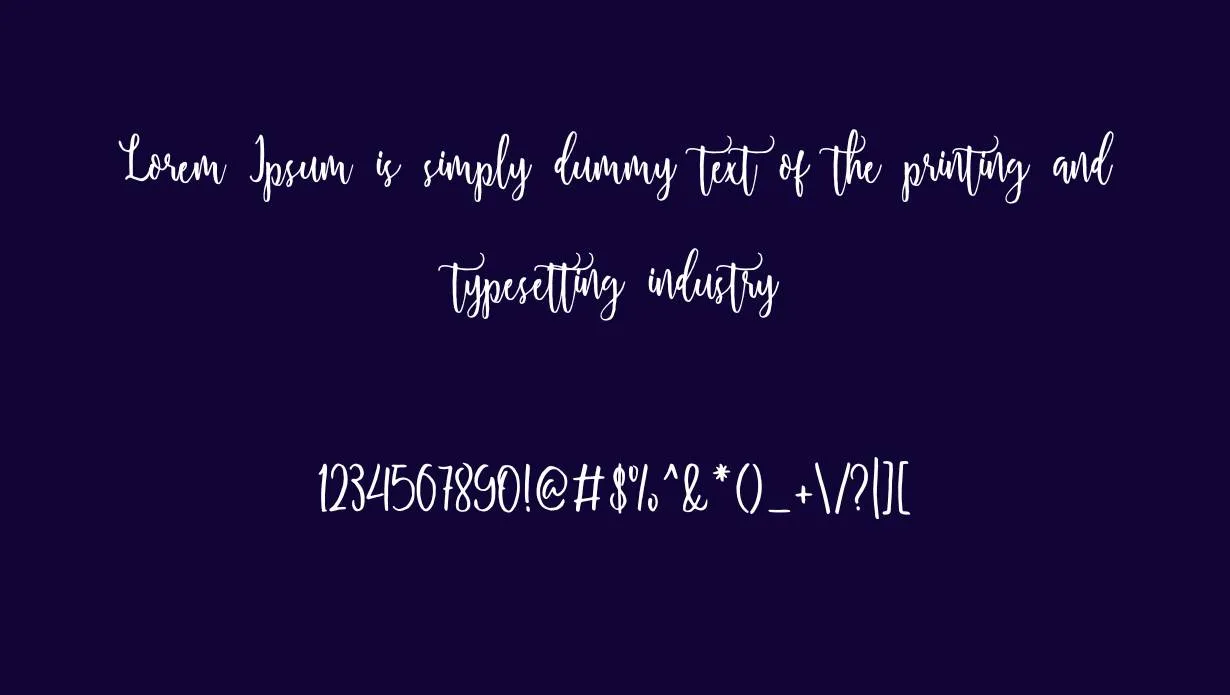
Shellahera font is like a handwritten note from a friend, adding a personal touch to your words. Ideal for warm messages or casual greetings, it creates an inviting atmosphere. The gently medium weight gives a friendly and approachable appearance, and its casually proportioned width makes Shellahera the font that feels like a friendly conversation in written form.
| Name | Shellahera Font |
| Designer | Ryan Prasetya |
Use Shellahera to add a personal touch to your words, making your messages feel like a genuine and heartfelt connection.